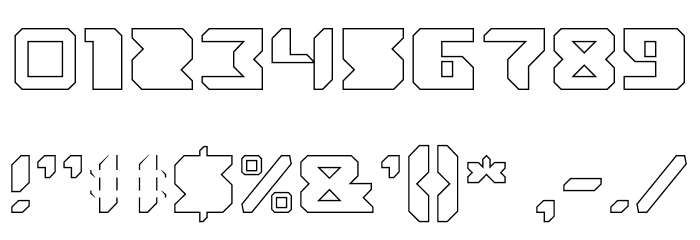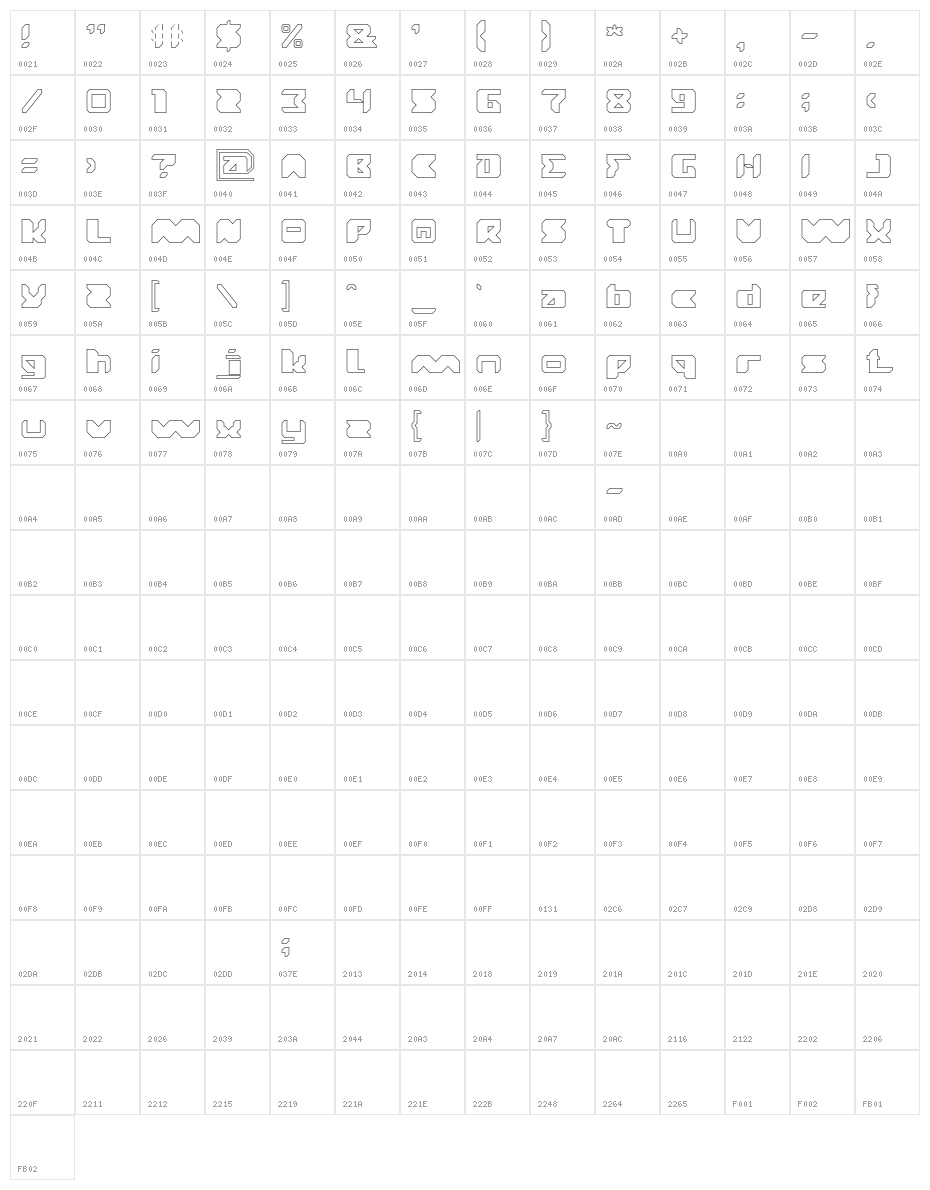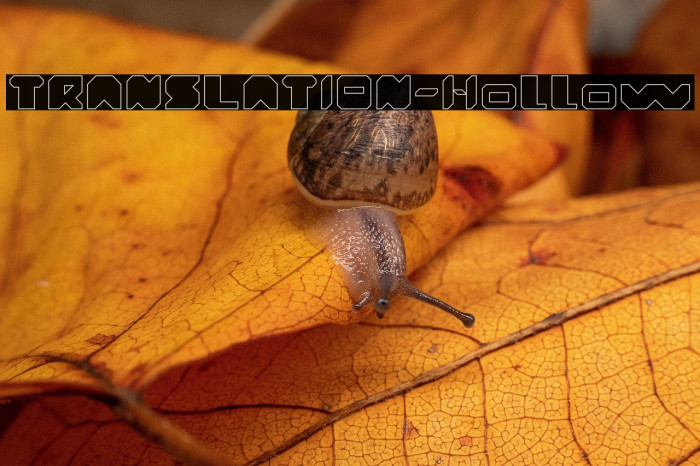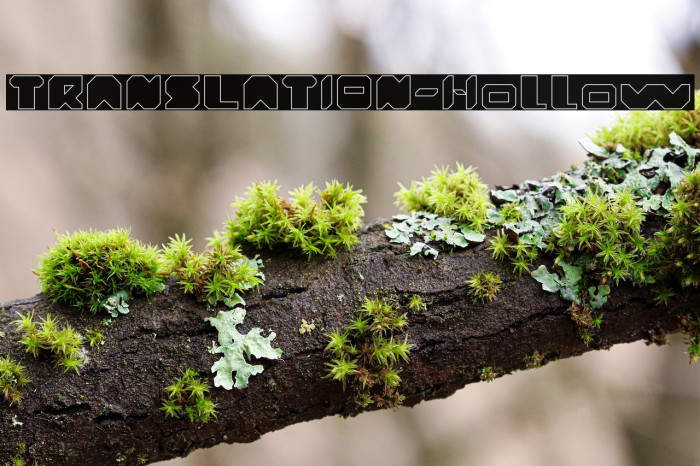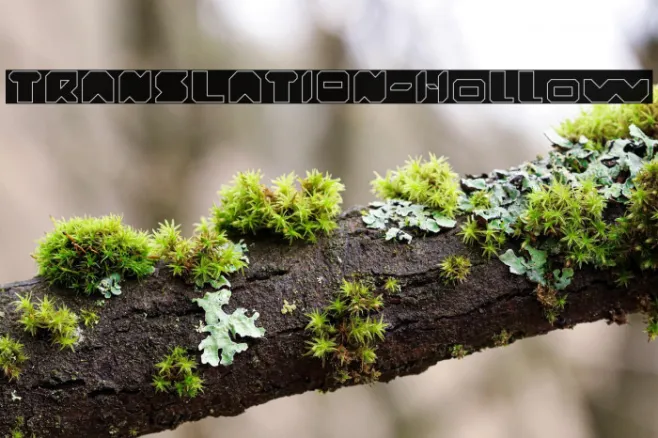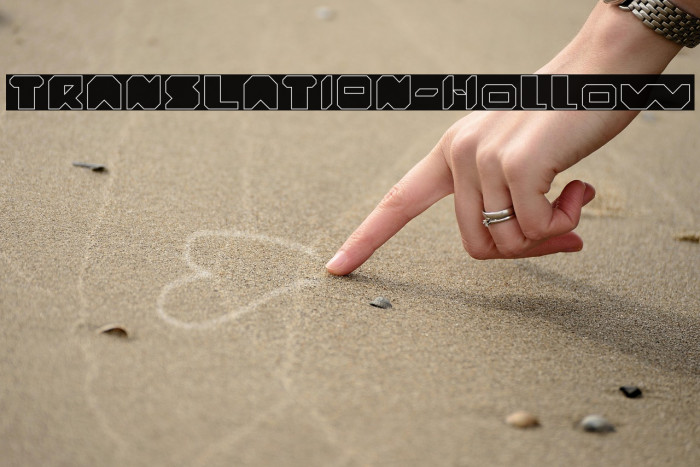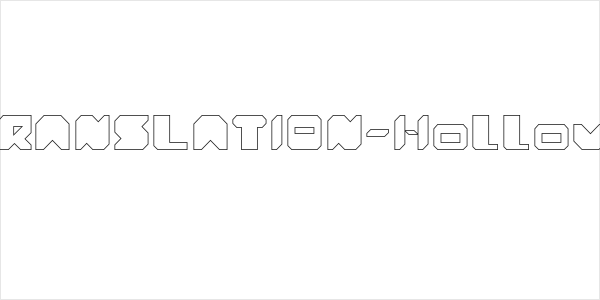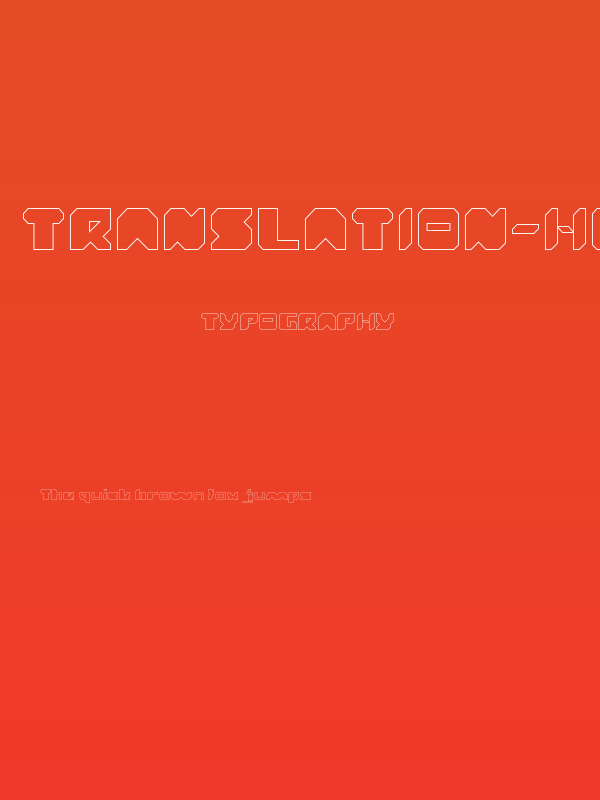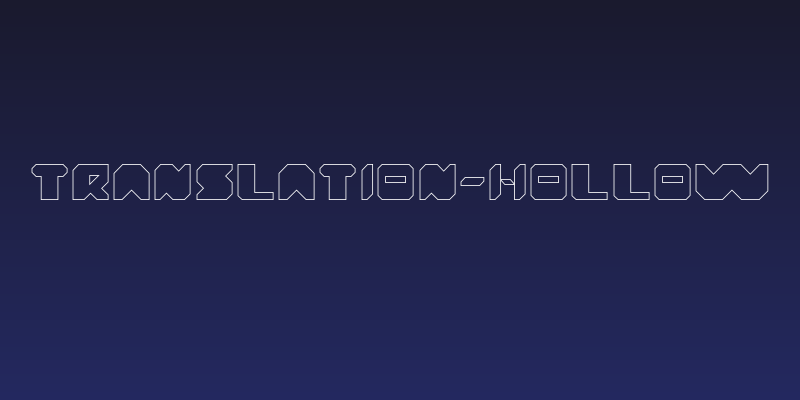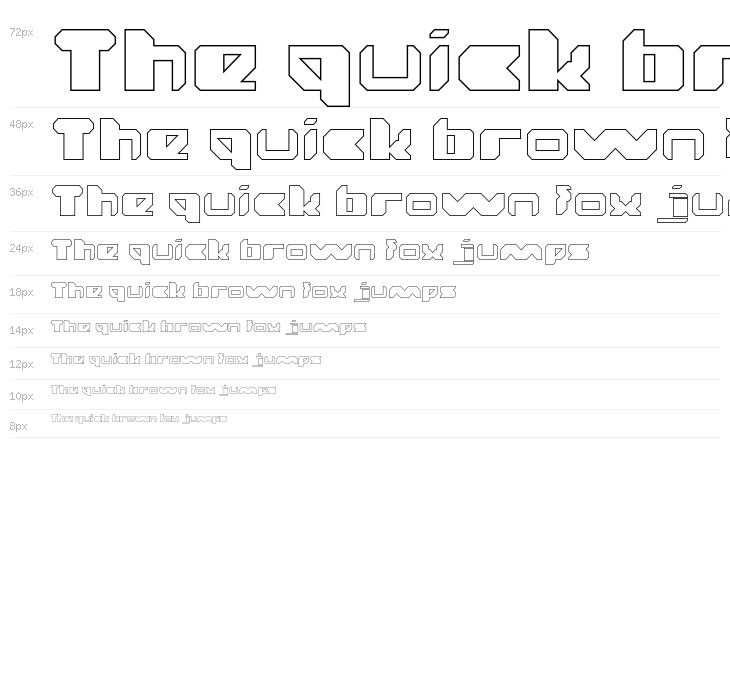
TRANSLATION-Hollow Font
TRANSLATION-Hollow Description
This font features a hollow, geometric design with sharp angles and a futuristic aesthetic. Each character is outlined, creating a sense of depth and dimension. The uppercase and lowercase letters maintain a consistent style, with angular cuts and a uniform thickness throughout. Numbers and special characters follow the same design principles, ensuring a cohesive look. The font's unique structure makes it stand out, offering a modern and edgy feel suitable for creative projects.
| Proposed Projects | Ideal for sci-fi themed designs, tech branding, posters, and digital artwork. |